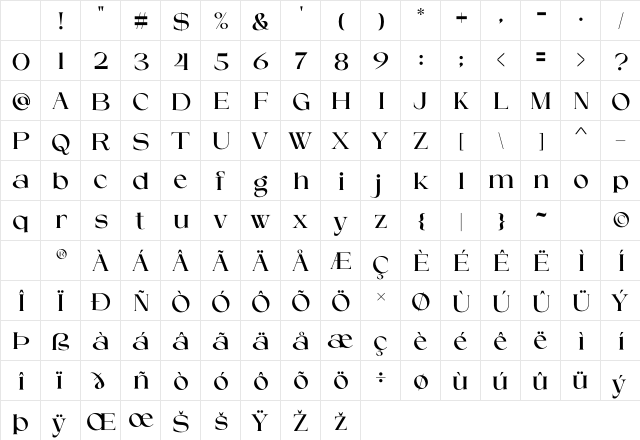
Complete SOMER Regular glyph index. Displaying only characters natively supported by SOMER Regular font.
SOMER is a composed and adaptable typeface that performs quietly and consistently across a wide range of design contexts.